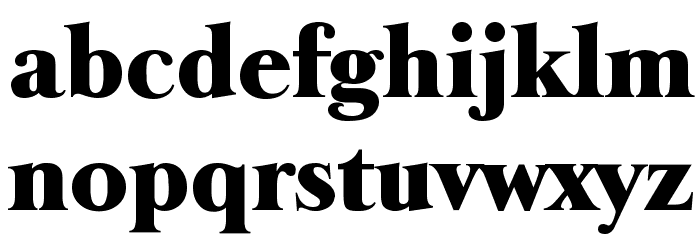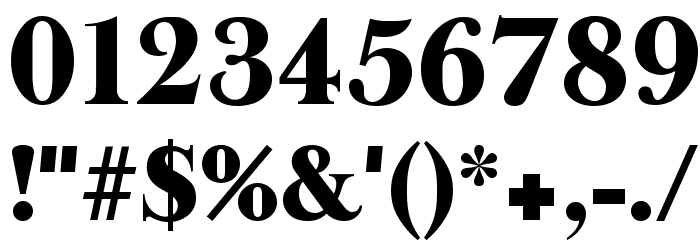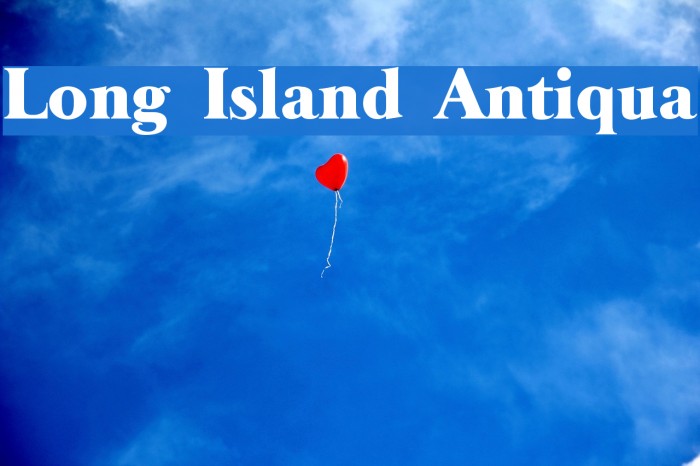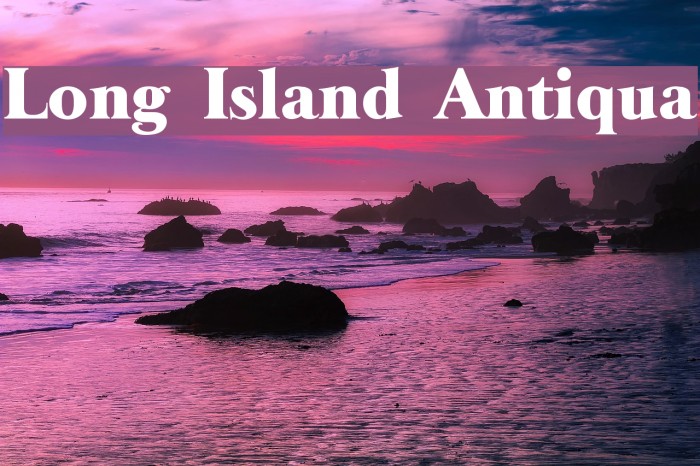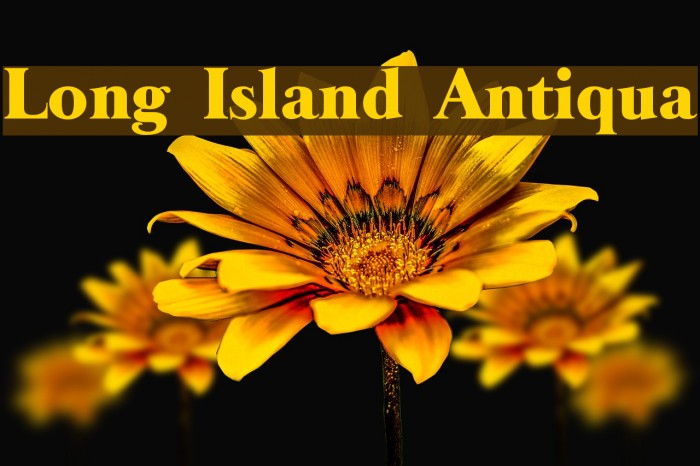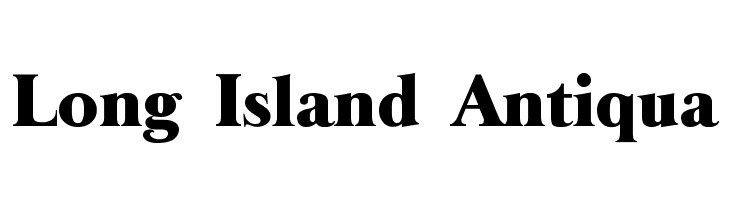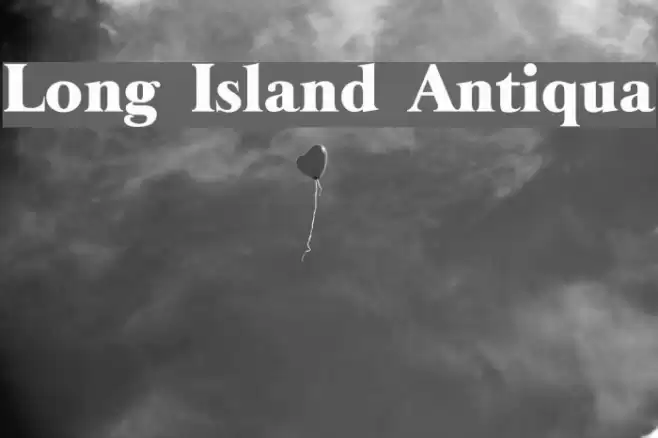
Long Island Antiqua Font
This font exhibits a classic serif style with strong, bold strokes and high contrast between thick and thin lines. The serifs are pronounced, adding a touch of elegance and tradition. The uppercase letters are stately and commanding, while the lowercase letters maintain a consistent, readable form. The numerals are robust and clear, making them suitable for various applications. Special characters are well-integrated, maintaining the overall aesthetic. This font is ideal for projects that require a formal and authoritative presence, such as book covers, editorial design, or branding for luxury products.
A classic serif font with bold strokes and high contrast, exuding elegance and tradition.
- Proposed Projects: Ideal for book covers, editorial design, luxury branding, and formal invitations.
- Overall Style: Classic
- Use Case: Headlines, Logos, Editorial design